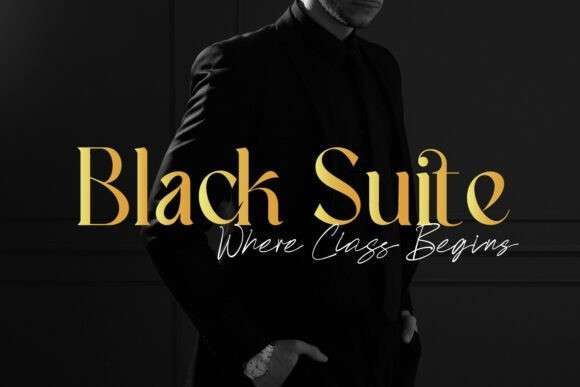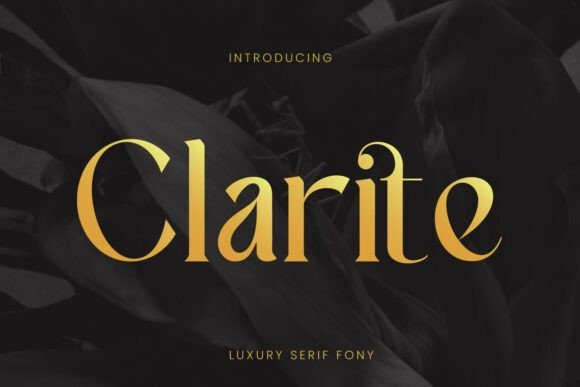
Clarite Font
Clarite Font is an elegant serif font that seamlessly blends flowing curves with crisp, refined edges. Designed to evoke a sense of both modernity and classic charm, Clarite is the epitome of timeless style. Perfect for upscale branding, couture fashion campaigns, polished editorial spreads, and high-impact logo designs, this font lends a graceful presence to any project. With its harmonious contrast and poised structure, Clarite captures the essence of visual refinement—where every letterform speaks of elegance, clarity, and lasting beauty.